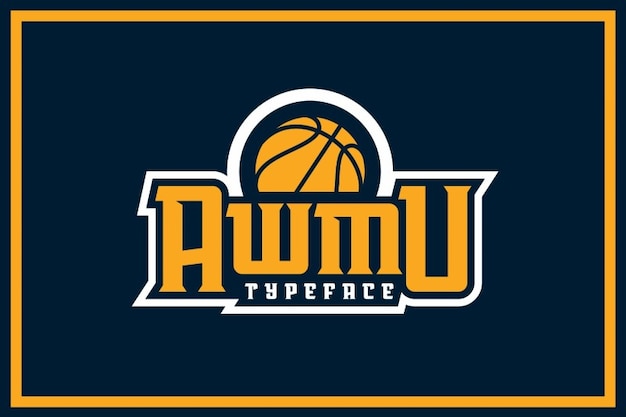
Awmu Font
Awmu is a bold, sporty font inspired by basketball's fast-paced action and dynamic energy. Its sharp, clean lines and strong, angular characters make it perfect for basketball jerseys, team logos, and sports branding. Awmu adds a competitive edge and a sleek, modern look, ensuring your designs stand out on the court and beyond with a professional and athletic vibe.